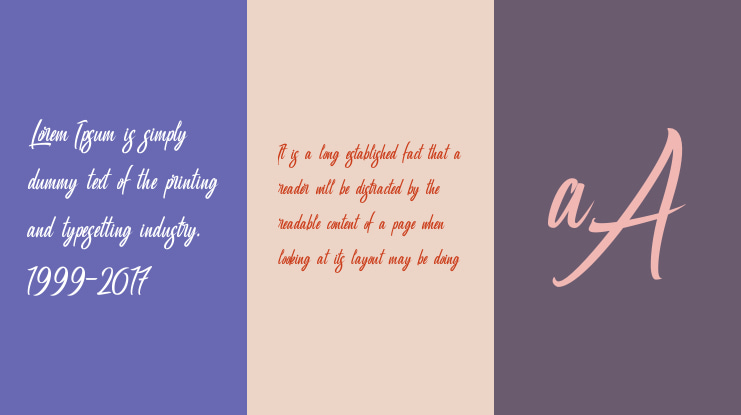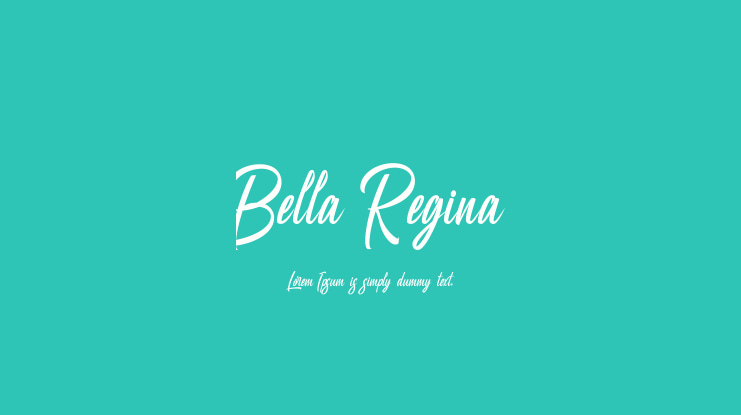
Bella Regina Font Family
Bella Regina font with modern calligraphy styles. A collection of letters and numbers suitable your projects also great for Logotype, Branding Design, Logo Design, Digital Lettering Arts, T-Shirt/Apparel, Poster, Magazine, Signs, Advertising Design, and any design needs.